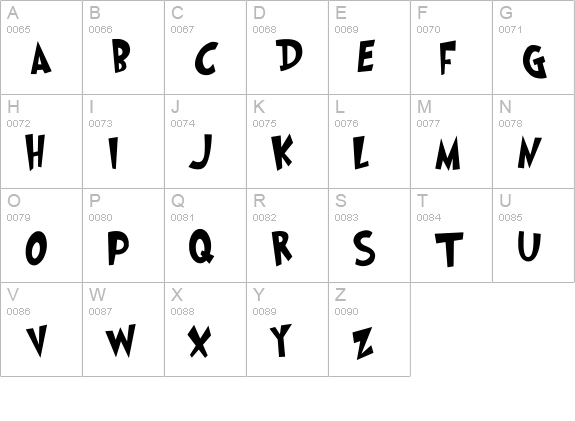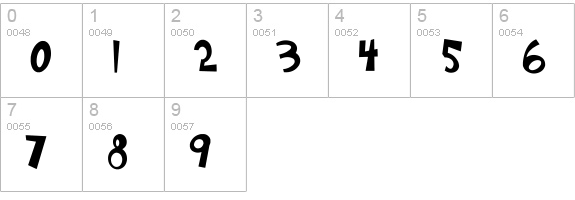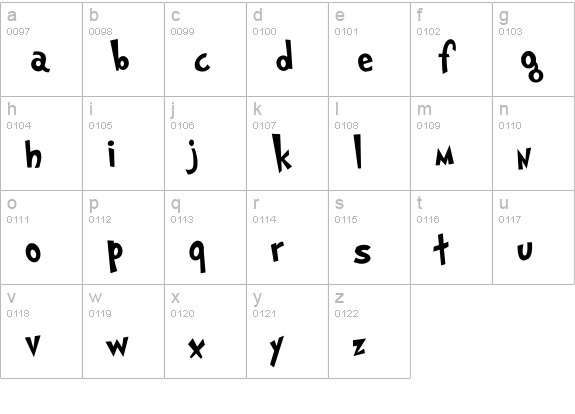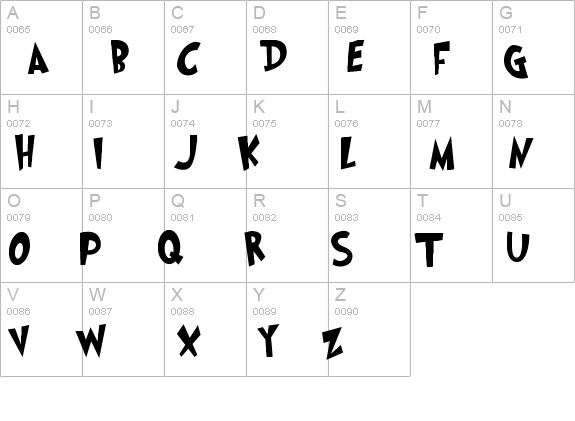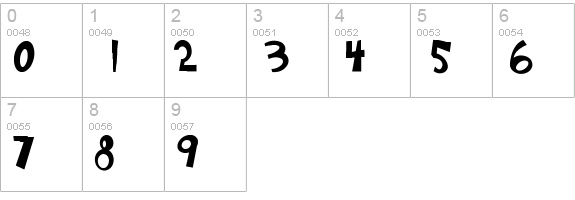
Grinched Regular Font Details
Grinched Regular is the standard, neutral variant in the Grinched typeface family \xE2\x80\x94 well suited to general body text, paragraphs, and standard typographic work.
Grinched Regular font is a whimsical and playful typeface that exudes charm and character. Its quirky and hand-drawn style is perfect for adding a touch of fun to your designs. Whether you're creating greeting cards, posters, or social media graphics, Grinched Regular will bring a smile to your audience's face. The font features unique character designs with uneven edges and a slightly grungy appearance, giving it a homemade and authentic feel. Its bold and eye-catching letters are sure to make your text stand out and grab attention. Best of all, Grinched Regular font is completely free to download at FontsMarket.com. This means you can use it in personal or commercial projects without any restrictions. So go ahead and add a touch of whimsy to your designs with Grinched Regular font today!